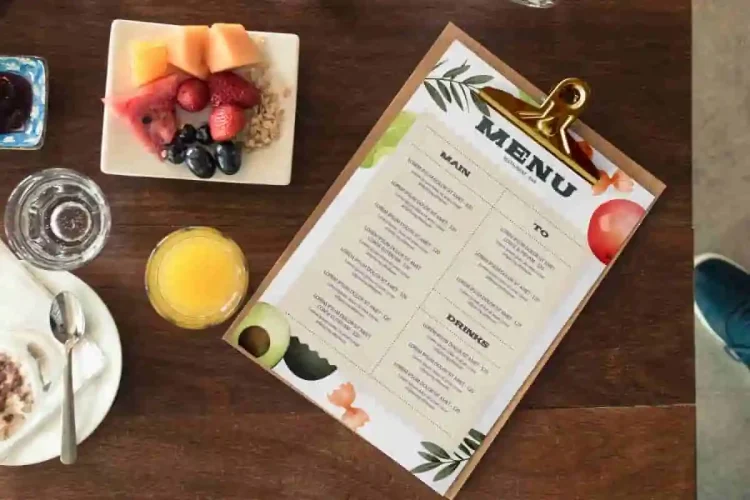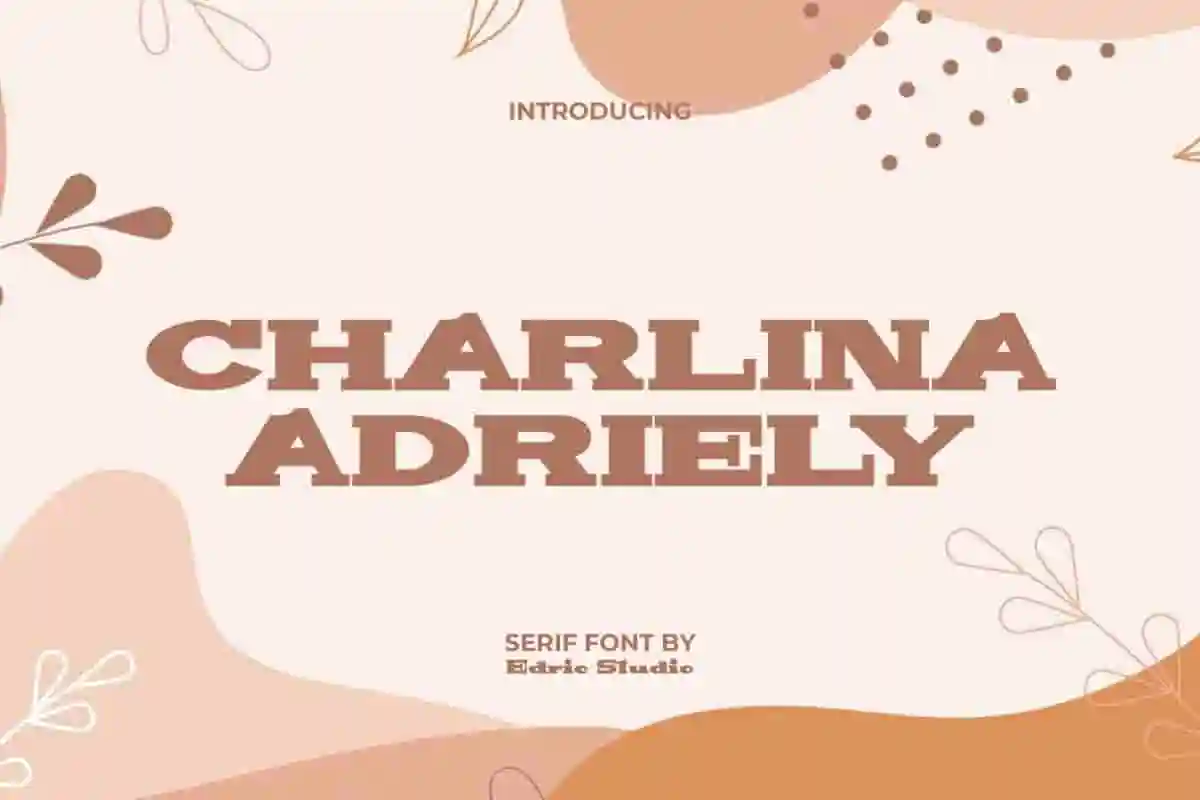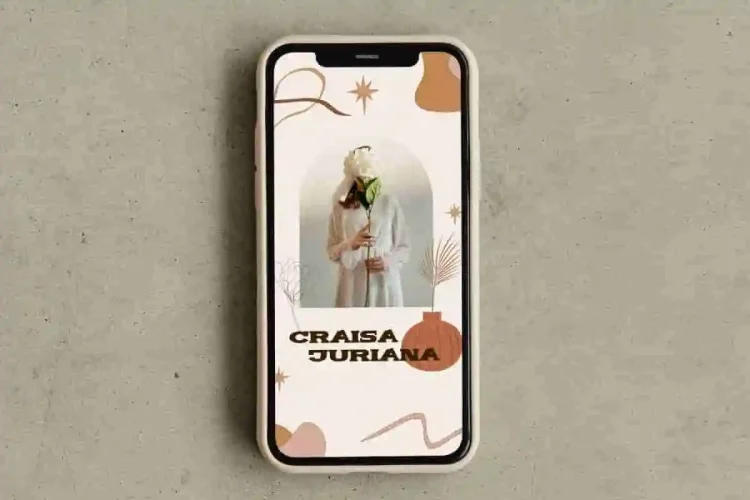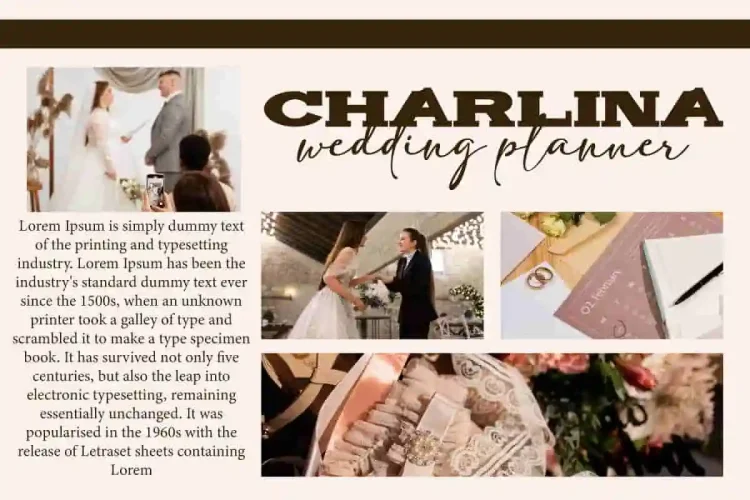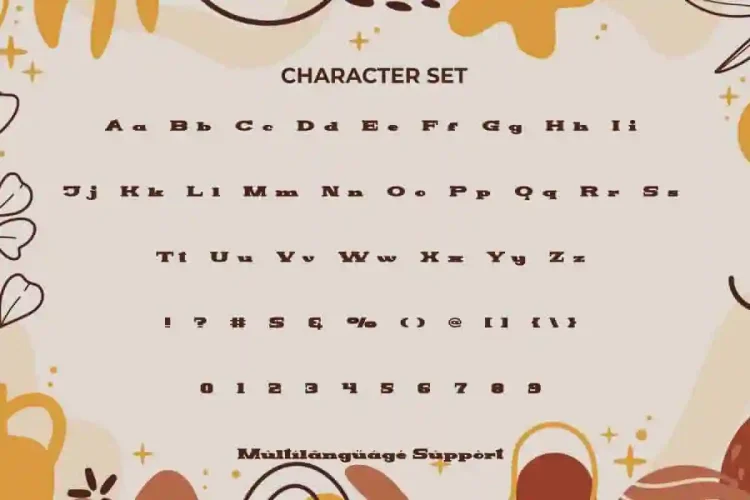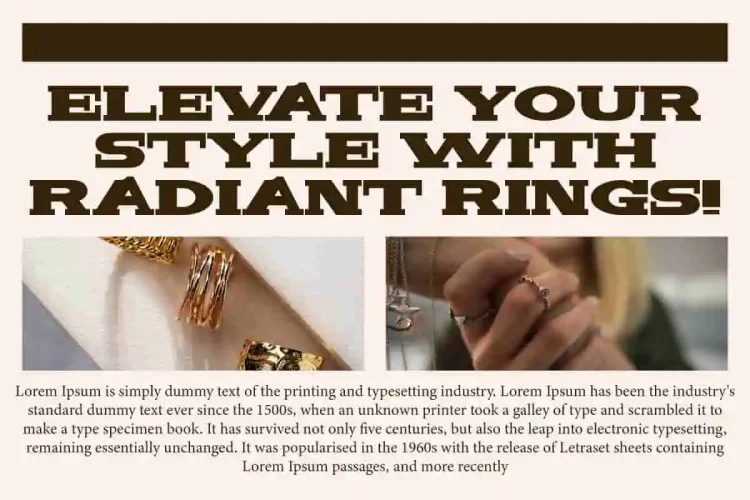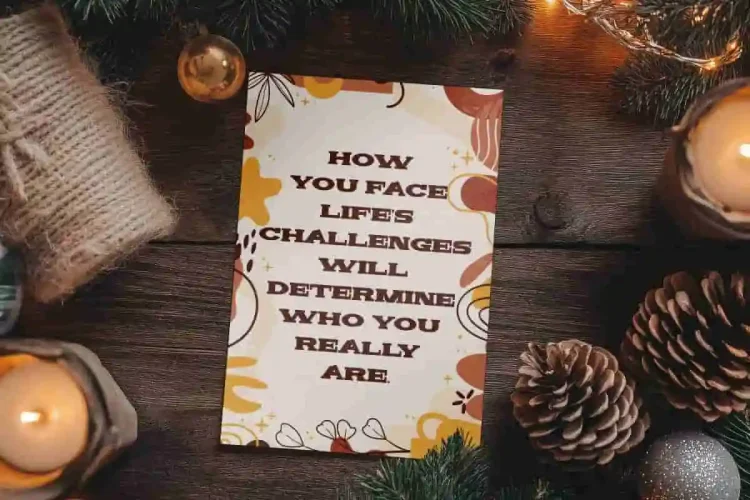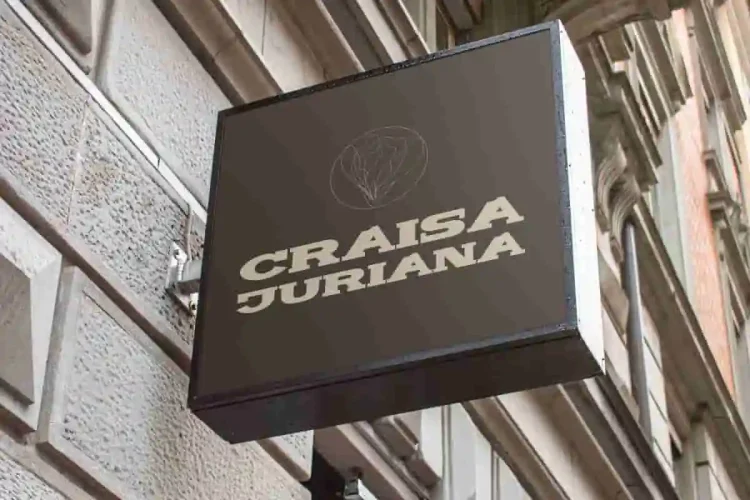
Charlina Adriely Charming Font
Charlina Adriely Font is a charming serif made more special with an elegant style. It allows for a concise and refined font look that is perfect for working on both modern and vintage purposes. It’s also very easy to read in sentence form, making it useful for anything you want to convey with a relaxed vibe without coming across as too childish. This font is ideal for apps, banners, blogs, brochures, covers, flyers, greeting cards, headers, invitation, logos, menu, mockup, poster, signage, stationery, template, title, website, and other projects.
Charlina Adriely Font includes a complete set of Uppercase and Lowercase letters, Numbers, Punctuation, and Symbols. The letters are made a little different from the usual and still minimalist featuring a design with large, wide and heavy serif display, giving it a unique and professional personality. This will definitely create a bold, impactful look and that adds to its appeal. It works great for accessories and gifts, authors, cafes, creative studios, event organizer, florist, graphic design, jewelry, photography, publisher, restaurants, wedding planning, and much more.